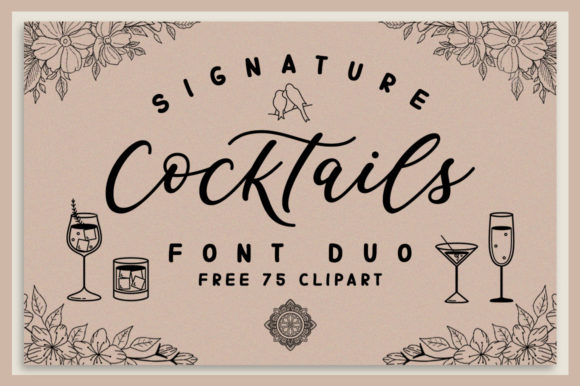
Introducing Signature Cocktails Duo Font, a sensational addition to your font collection! Crafted by the talented Graphix Line Studio, this modern calligraphy font is the ultimate tool for creating stunning hand-made typography in an instant.
With Signature Cocktails, you can effortlessly infuse your designs with an air of elegance, sophistication, and creativity. Each letter is meticulously crafted, ensuring a seamless flow that mimics the artistry of hand-lettering. Whether you're designing invitations, logos, posters, or social media graphics, this font will elevate your projects to new heights.
Immerse yourself in the world of endless possibilities as you explore the diverse range of styles and characters available in the Signature Cocktails Duo Font. From delicate and graceful scripts to bold and expressive strokes, this font family offers an extensive collection that suits every design need.
Express your unique personality and captivate your audience with the versatility of Signature Cocktails. Whether you're aiming for a romantic, whimsical feel or a bold and contemporary look, this font has got you covered. Let your words dance across the page, leaving a lasting impression on anyone who lays eyes on your creations.
Delve into the realm of emotions and touch hearts with the expressive power of Signature Cocktails. Each stroke exudes passion, evoking a sense of warmth and connection. Your messages will resonate deeply with your audience, leaving them enchanted and yearning for more.